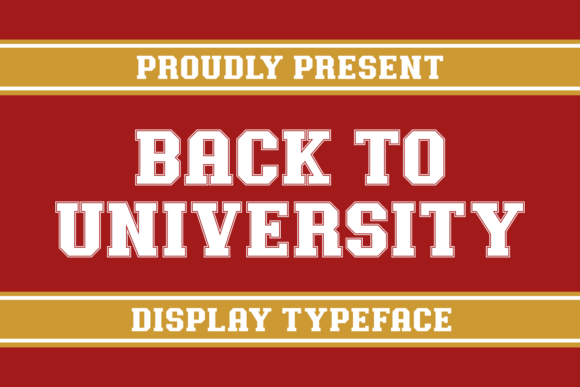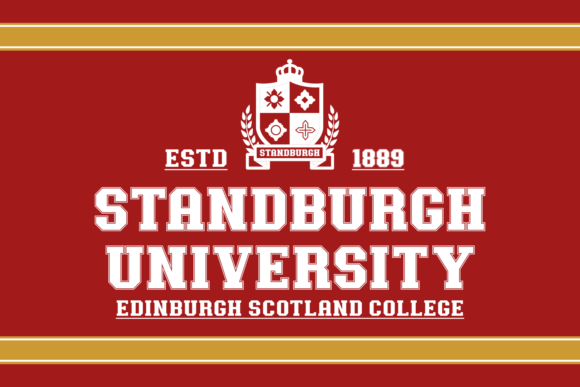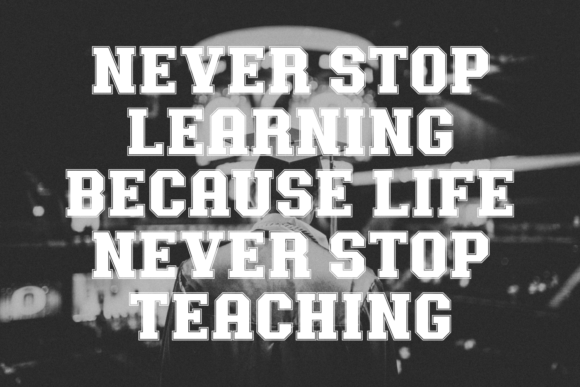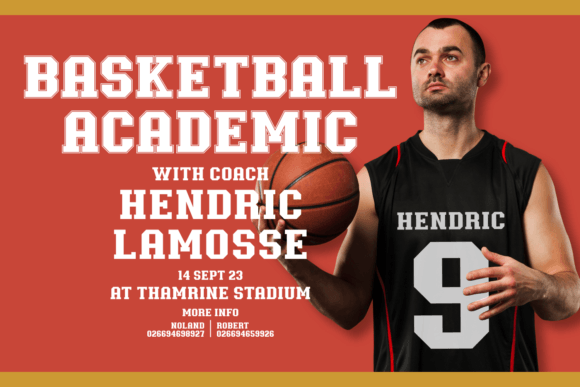
Back to University Font
About the Back to University Font
Introducing the Back to University Font, a beautifully crafted typeface designed to elevate your creative projects. Back to University font exudes a classic college vibe that takes you right back to campus. With its bold yet refined design, this typeface brings a touch of academic nostalgia to your projects. Whether it’s creating banners, yearbook covers, or event flyers, ‘Back to University’ adds an intellectual charm that resonates with the spirit of higher learning.
This font excels in headline use, particularly for projects related to education, publishing, or events with a scholarly theme. It also works well for branding applications requiring a sophisticated yet approachable feel, such as logos for academic institutions or literary organizations. Avoid using it for lengthy body text or UI elements where readability is paramount; its boldness can become fatiguing.
For optimal visual harmony, pair ‘Back to University’ with a clean sans-serif like Open Sans for body copy, creating a strong contrast in weight and style. Alternatively, a classic serif like Garamond can enhance its academic feel, while a playful script font could add a touch of personality for specific applications, such as invitations.
The overall personality is confident and traditional, conveying authority and trustworthiness without being overly stuffy. It’s best suited to brands and projects that value heritage, knowledge, and a refined aesthetic.
Back to University Font Example